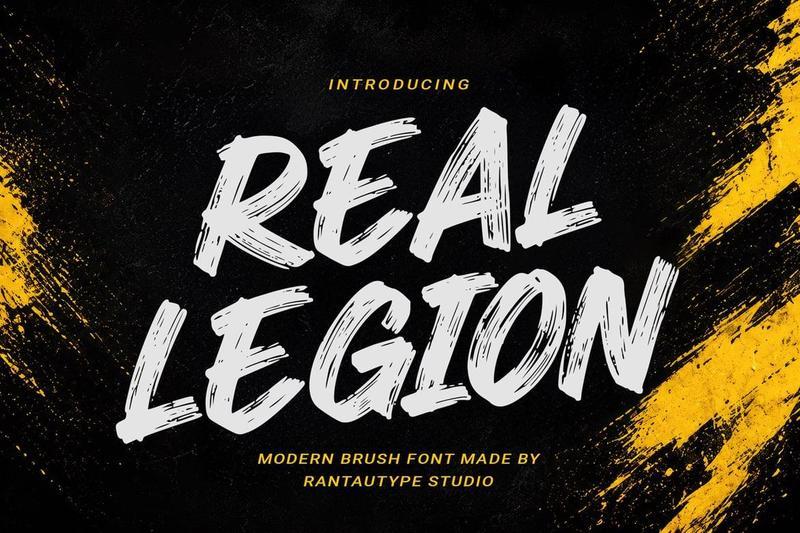
Real Legion Modern Brush Font T4YA6FN
Real Legacy is modern brush font captures the spirit of fearless creativity with bold hand-painted strokes that instantly command attention. Designed with an energetic urban aesthetic, every letter reflects the raw movement of a brush, creating a natural rhythm that feels expressive, authentic, and full of personality. The textured edges and handcrafted details add depth and character, making the typeface appear dynamic while maintaining excellent readability across both print and digital applications.